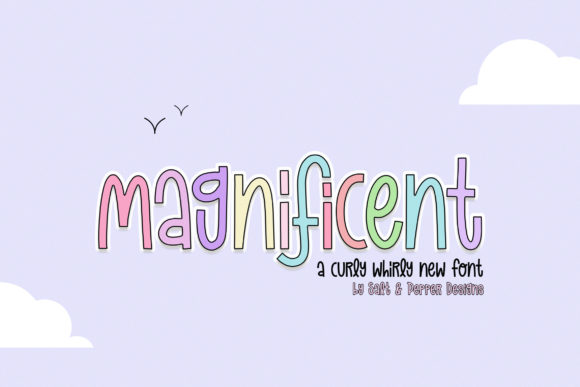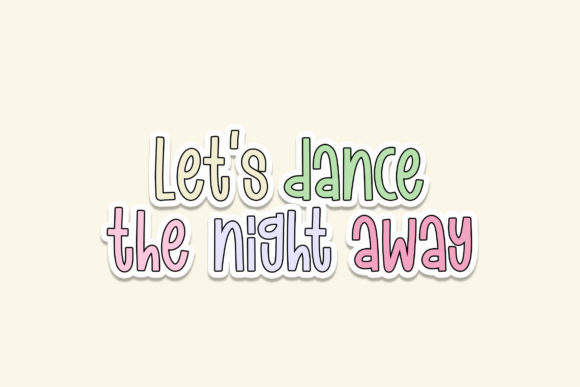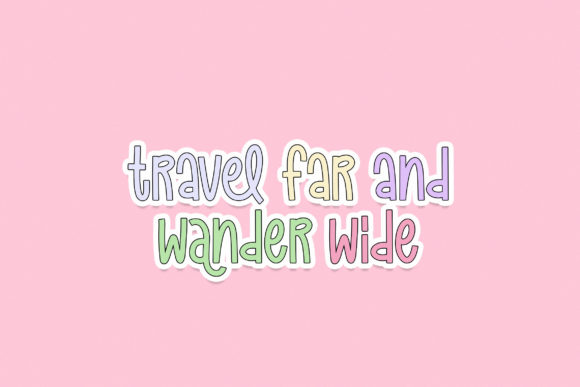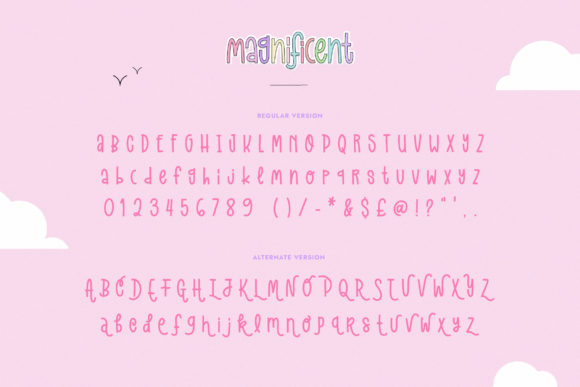
Magnificent Duo is a friendly, joyful and neat display font. This font is perfect for children themed designs, especially when combined with bright colors.
Magnificent Duo Font